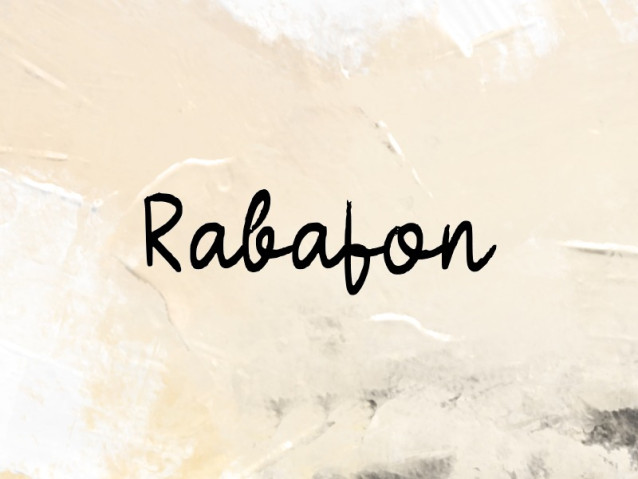
Rabafon Font
Rabafon Font is a simple and friendly handwritten font. Its natural and unique style makes it incredibly fitting to a large pool of designs. The only limit is your imagination!